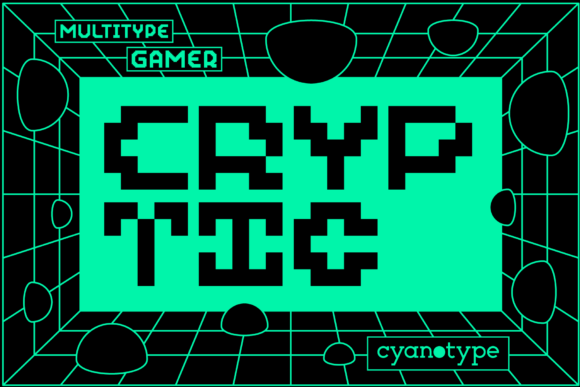
Embark on a typographic odyssey with Gamer Cryptic, the font that redefines pixelated artistry! This captivating display font boasts an otherworldly charm, effortlessly adding a touch of distortion and vogue to your creative projects. It's a font that speaks to the rebels, the dreamers, and the innovators, inviting you to break free from the mundane and embrace the unconventional.
Gamer Cryptic's sharp angles and meticulously crafted glyphs create a visual symphony, reminiscent of a forgotten digital realm. It's a font that dances on the edge of reality, blurring the lines between the physical and the virtual. With Gamer Cryptic, you have the power to transport your audience to a world where pixels come alive and imagination knows no bounds.
Unleash your creativity and let Gamer Cryptic morph your words into captivating works of art. Its undeniable charm will captivate your audience, leaving them spellbound by the sheer brilliance of your designs. Whether you're crafting logos, posters, social media graphics, or website headers, Gamer Cryptic will elevate your projects to new heights of visual splendor.
But Gamer Cryptic is more than just a pretty face; it's a versatile chameleon that adapts seamlessly to a myriad of design styles. From retro-futuristic aesthetics to modern, minimalist designs, Gamer Cryptic possesses the uncanny ability to blend in harmoniously, enhancing your projects with its distinctive character.
The possibilities with Gamer Cryptic are as boundless as your imagination. Dive into the world of gaming and let its pixelated charm bring your characters and environments to life. Create eye-catching logos that demand attention or design website headers that transport visitors to uncharted digital territories. Unleash your inner artist and explore the endless creative possibilities that await you with Gamer Cryptic.
Join the legion of creatives who have embraced Gamer Cryptic's allure and witnessed the transformation of their designs. It's time to break free from the ordinary and embrace the extraordinary. Gamer Cryptic awaits, ready to ignite your imagination and propel your creativity to dizzying heights. Seize this opportunity to own a font that's not just a tool, but an experience. Prepare to be mesmerized by the magic of Gamer Cryptic!